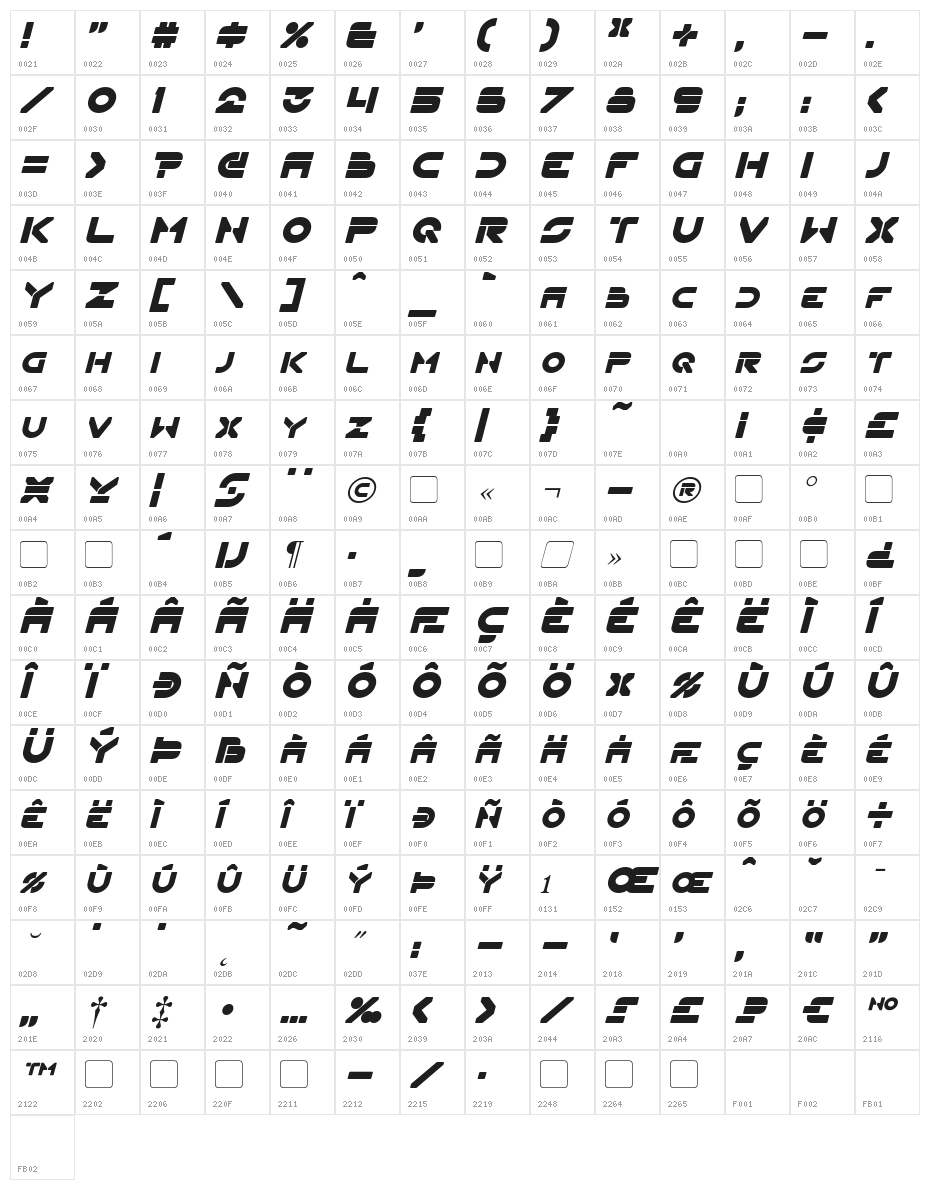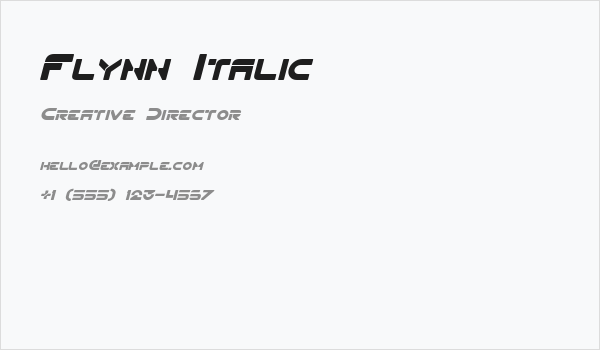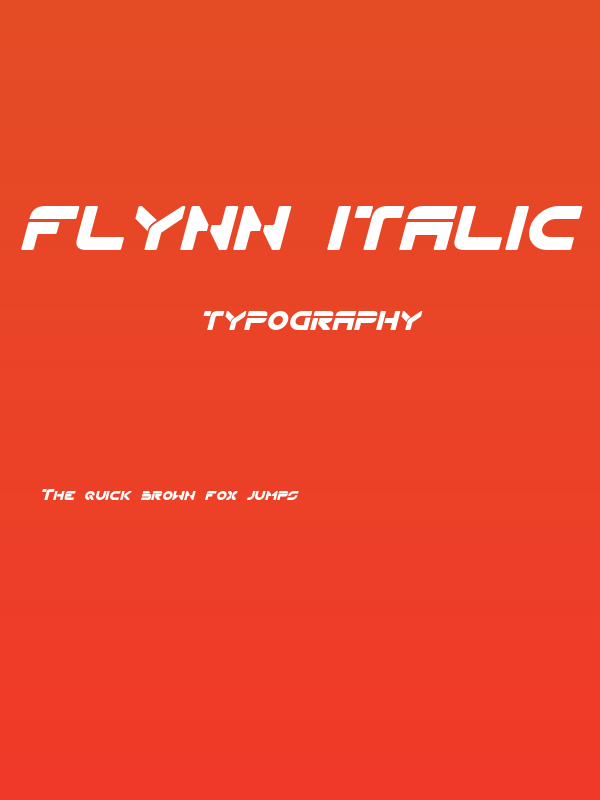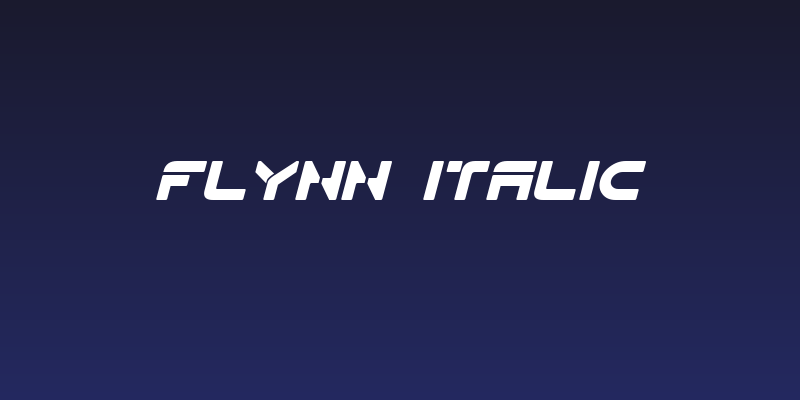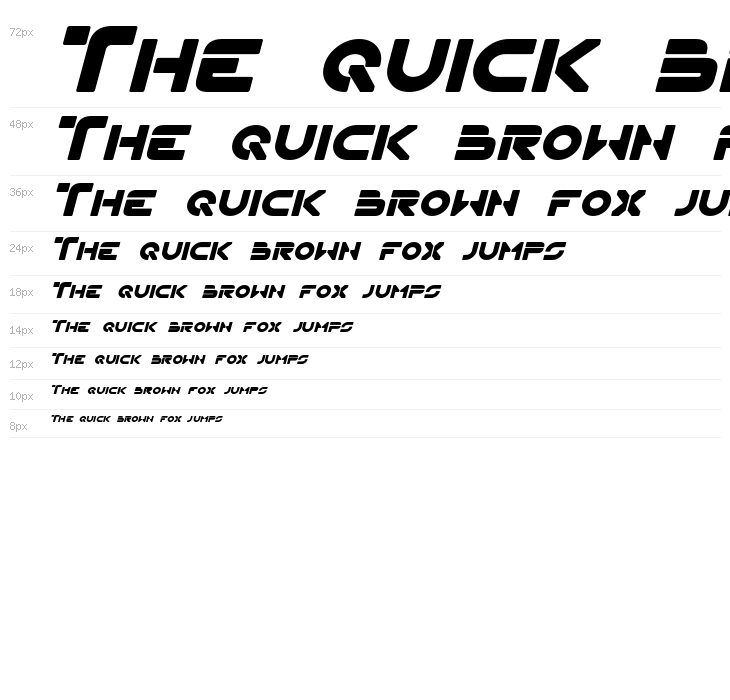
Flynn Italic Font
Flynn Italic Description
This font features a futuristic and dynamic design, characterized by its bold and italicized letterforms. The angular cuts and smooth curves create a sense of movement and speed, making it ideal for projects that require a modern and energetic aesthetic. The uppercase and lowercase letters maintain a consistent style, with a slight slant that enhances the italic effect. Numbers and special characters are designed to match the overall theme, ensuring a cohesive look across all text elements. The font's unique style makes it stand out, while still being legible and versatile for various uses.
| Proposed Projects | Ideal for technology branding, sports team logos, video game titles, and sci-fi themed posters. |